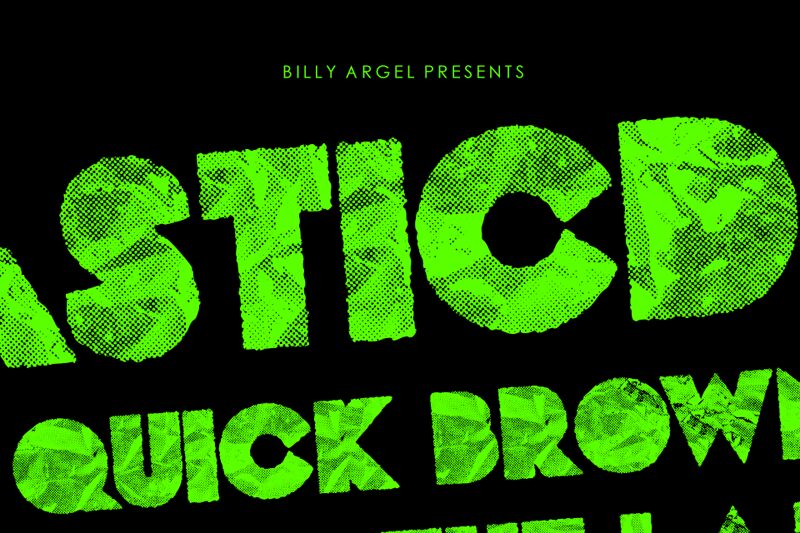
Introducing PLASTICDOTS, a decorative display font designed by Billy Argel and available in bold weight. Perfect for making creative headlines, eye-catching posters, and adding a playful touch to your branding projects.
Layered font, uppercase over the lowercase with different colors create a cool effect!